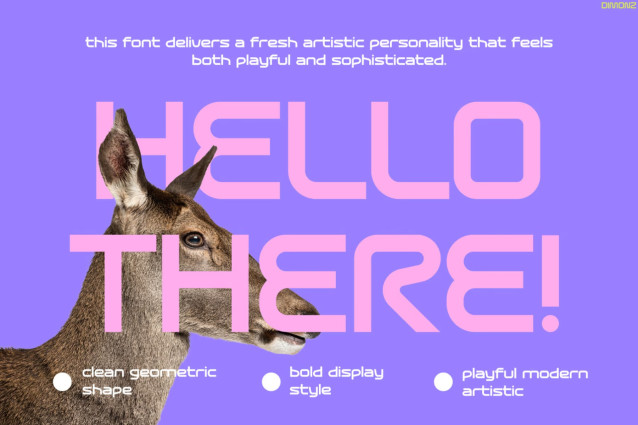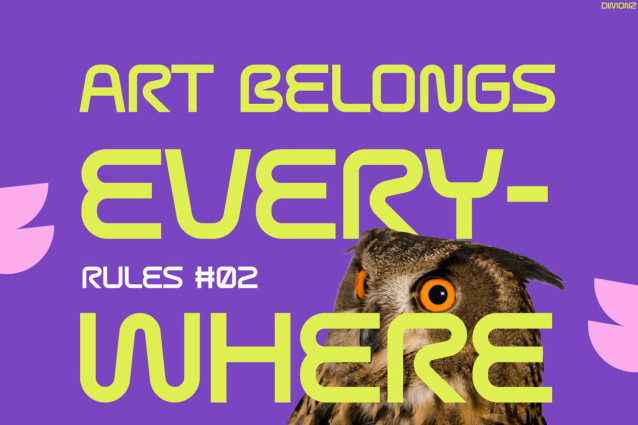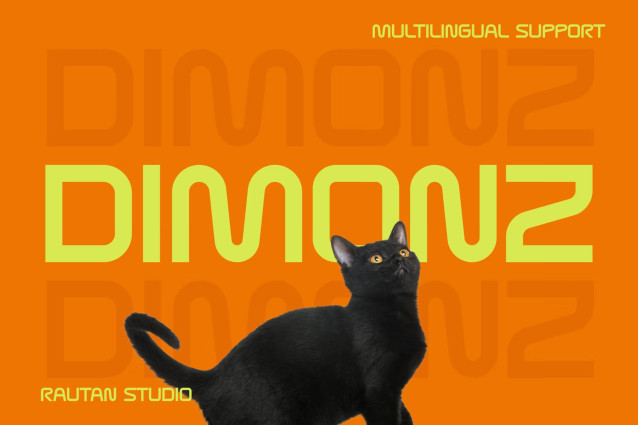
Dimonz Modern Font – A Bold Typeface That Powers Tomorrow’s Creative Vision
Modern Font Dimonz pushes futuristic typography into a new era with bold geometric shapes and smooth, innovative curves. Instead of following ordinary design trends, Dimonz creates a fresh visual identity that immediately captures attention. Moreover, its unique letterforms bring energy, movement, and personality to every headline. As a result, your designs feel modern, confident, and impossible to ignore.
At the same time, the balanced proportions keep every word crisp and easy to read across print and digital media. Furthermore, Multilingual Support for 67 languages lets you connect with audiences around the world while maintaining a consistent brand identity.